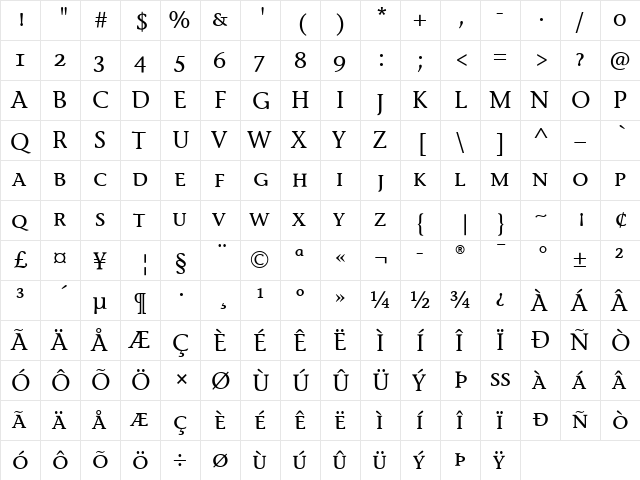
StoneInfSCITC Medium
| Foundry | International Typeface Corporation |
Design Context for StoneInfSCITC Typeface
StoneInfSCITC is a composed and adaptable typeface that performs quietly and consistently across a wide range of design contexts.